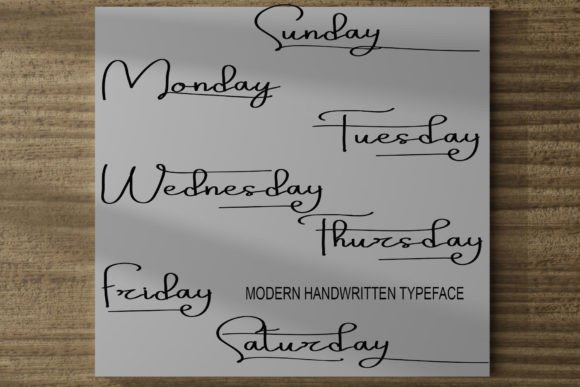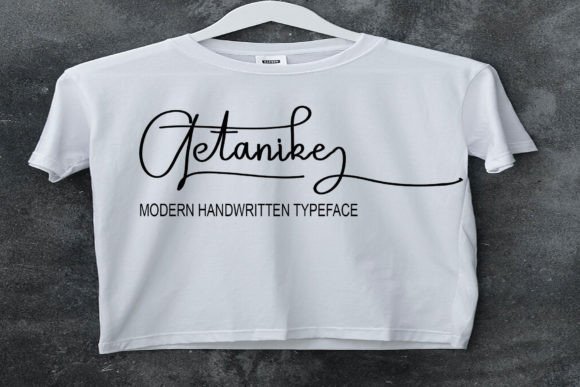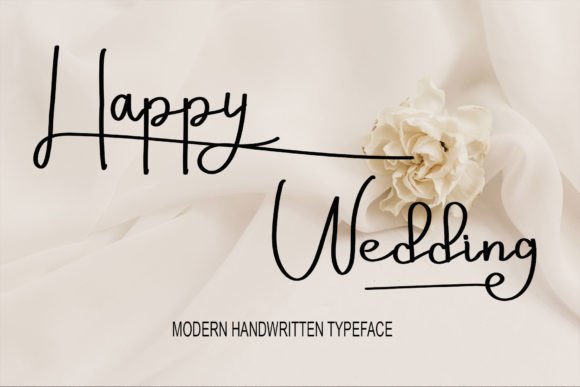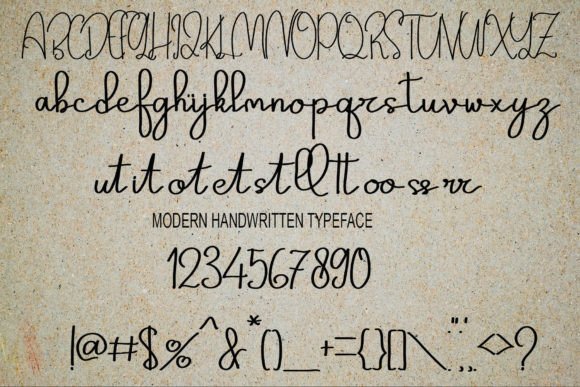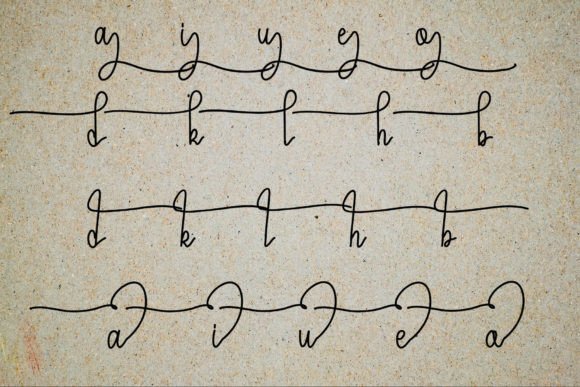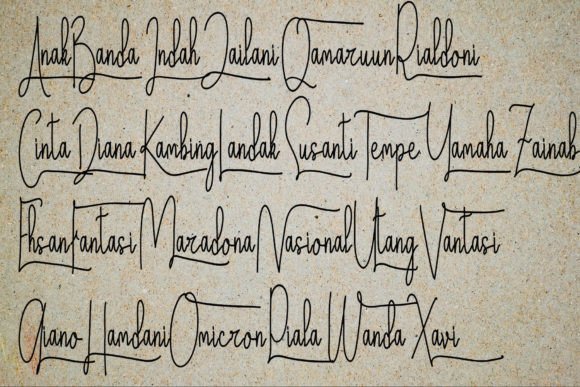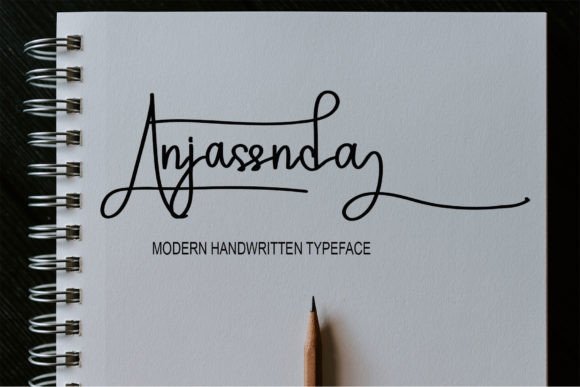
Introducing Anjassnda Font: The Fun and Quirky Handwritten Font for Crafty Ideas
Are you a designer or crafter looking for a unique and playful font to add to your creative projects? Look no further than Anjassnda Font! This fun and quirky handwritten font is perfect for adding a personal touch to your crafty ideas and taking them to the next level.
What is Anjassnda Font?
Anjassnda Font is a carefully crafted handwritten font that exudes a sense of playfulness and whimsy. Its unique and quirky design makes it perfect for a wide range of creative projects, from DIY crafts and handmade cards to digital designs and branding materials.
Key Features of Anjassnda Font
• Handwritten style: Anjassnda Font has a distinctly handwritten feel, with each letter and character carefully crafted to resemble the imperfections and quirks of handwriting.
• Fun and quirky design: The font’s playful design makes it perfect for adding a touch of personality to your creative projects.
• Easy to read: Despite its playful design, Anjassnda Font is easy to read and understand, making it perfect for use in a wide range of applications.
• Versatile: Anjassnda Font can be used in a variety of creative projects, from digital designs and branding materials to DIY crafts and handmade cards.
How to Use Anjassnda Font
Anjassnda Font is easy to use and can be incorporated into a wide range of creative projects. Here are a few ideas to get you started:
• DIY crafts: Use Anjassnda Font to add a personal touch to your DIY crafts, such as handmade cards, gift tags, and scrapbook pages.
• Digital designs: Add Anjassnda Font to your digital designs, such as social media graphics, blog posts, and website headers.
• Branding materials: Use Anjassnda Font to create unique and eye-catching branding materials, such as logos, business cards, and letterheads.
Benefits of Using Anjassnda Font
There are many benefits to using Anjassnda Font in your creative projects. Here are a few:
• Adds personality: Anjassnda Font adds a touch of personality and whimsy to your creative projects, setting them apart from more traditional designs.
• Easy to use: Anjassnda Font is easy to use and can be incorporated into a wide range of creative projects.
• Versatile: Anjassnda Font can be used in a variety of creative projects, from digital designs and branding materials to DIY crafts and handmade cards.
Tips for Getting the Most Out of Anjassnda Font
Here are a few tips for getting the most out of Anjassnda Font:
• Experiment with different colors: Anjassnda Font looks great in a variety of colors, so don’t be afraid to experiment and find the perfect color for your project.
• Pair with other fonts: Anjassnda Font pairs well with other fonts, so try combining it with a more traditional font for a unique and eye-catching design.
• Use it sparingly: Anjassnda Font is a bold and playful font, so use it sparingly to add emphasis and personality to your creative projects.
Anjassnda Font is a fun and quirky handwritten font that’s perfect for adding a personal touch to your creative projects. With its unique and playful design, it’s sure to add a touch of personality and whimsy to your DIY crafts, digital designs, and branding materials. So why not give Anjassnda Font a try and see the difference it can make in your creative projects?